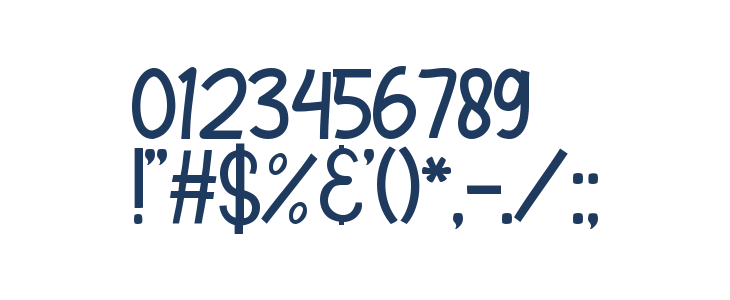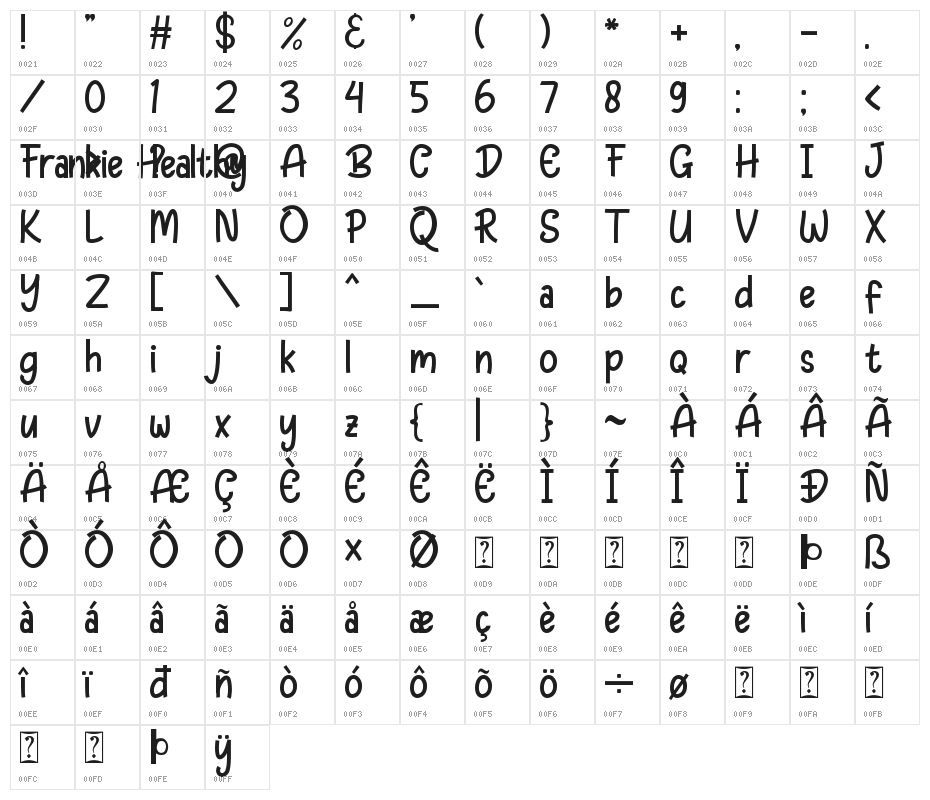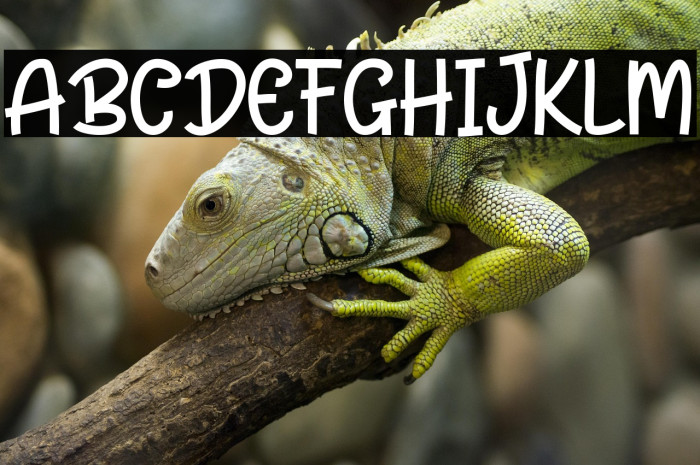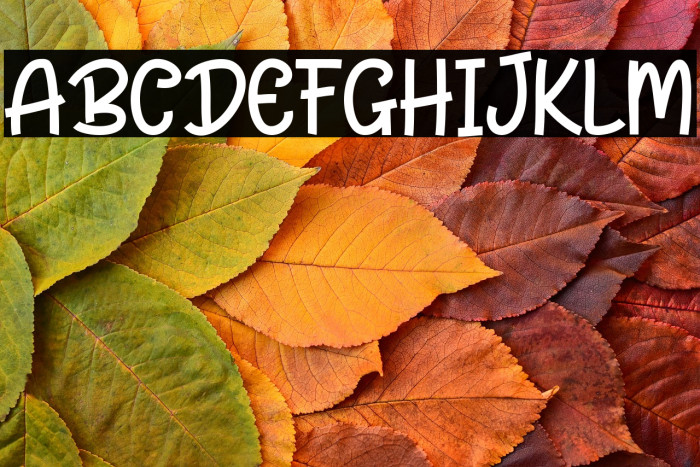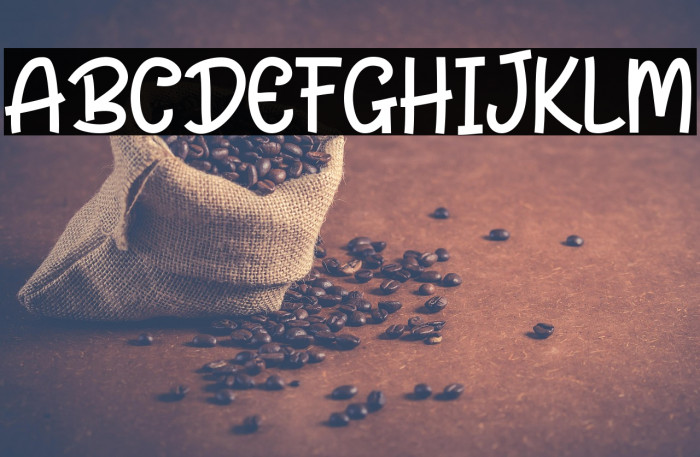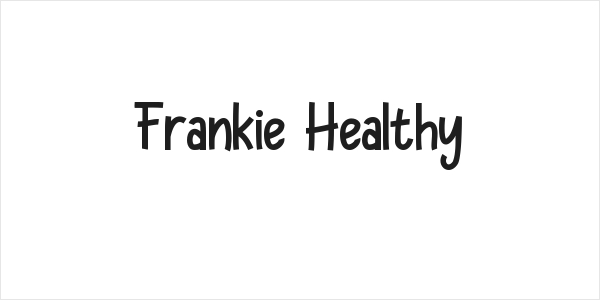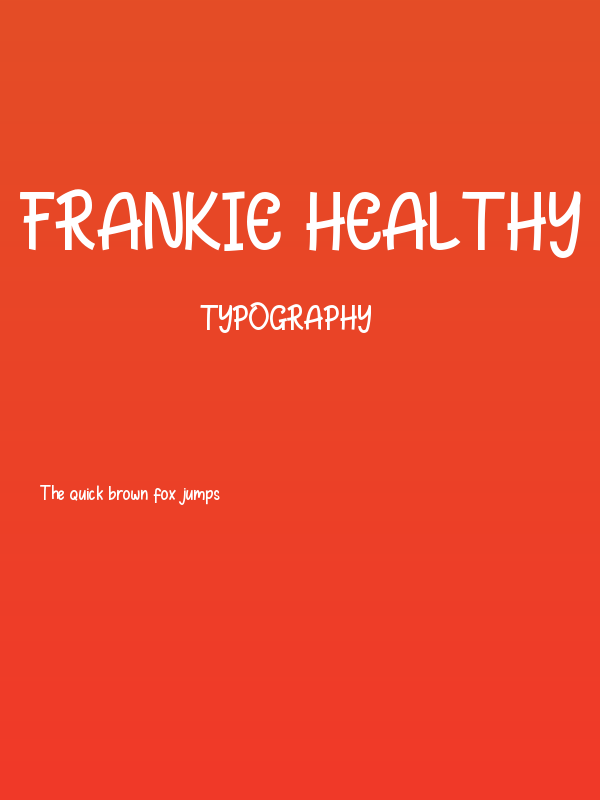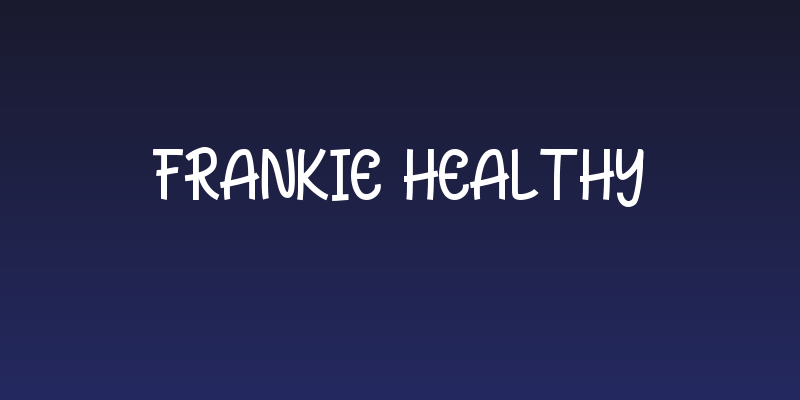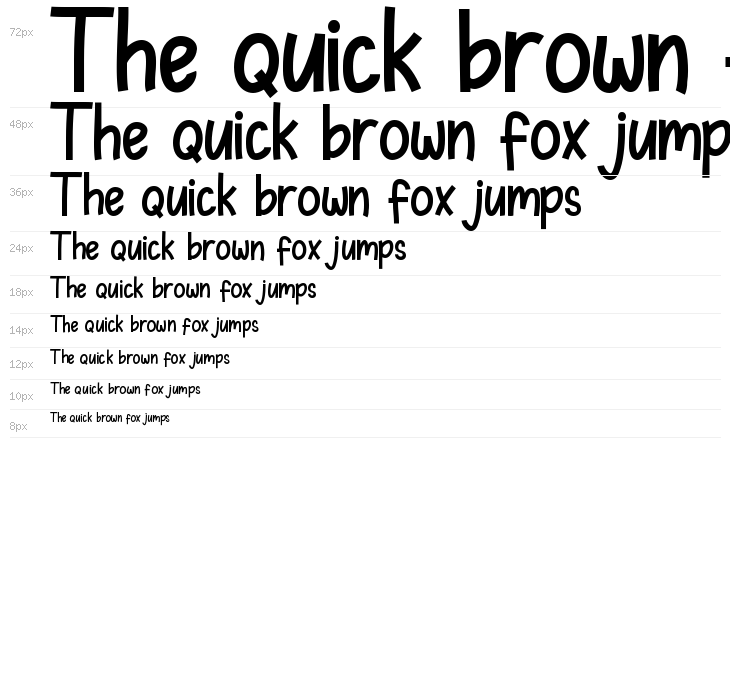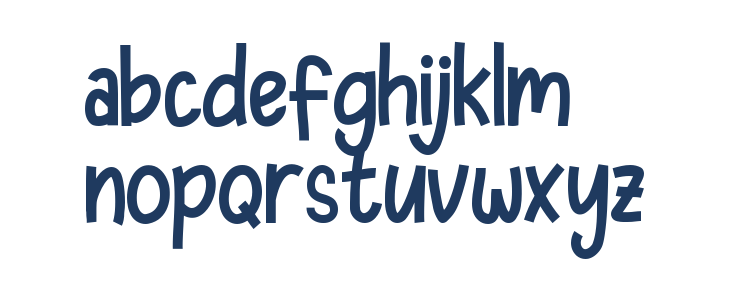
Frankie Healthy Font
Frankie Healthy Description
This playful and bold font features a handwritten style with a casual and friendly appearance. The letters are slightly irregular, giving it a lively and dynamic feel. The uppercase and lowercase characters maintain a consistent style, with rounded edges and a smooth flow. The numbers and special characters are equally expressive, adding to the font's overall charm. Its informal nature makes it suitable for creative and fun projects, where a touch of personality is desired. The font's design is approachable and engaging, making it ideal for various applications that require a personal touch.
| Proposed Projects | Ideal for children's books, greeting cards, posters, and playful branding. |